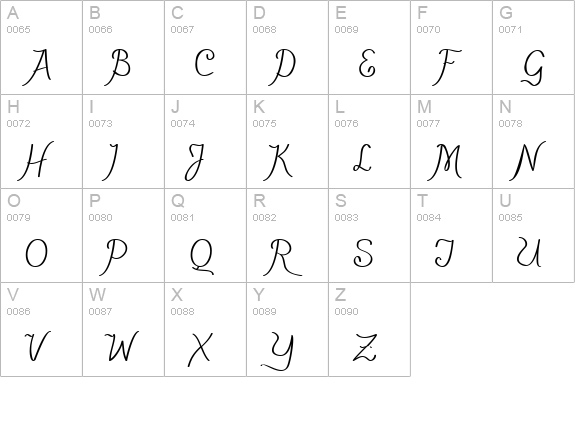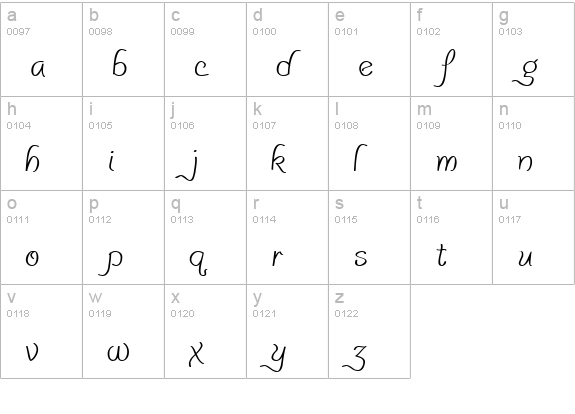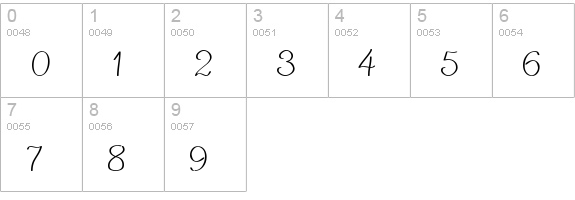
PensleCaligraf Plain Font Details
Introducing PensleCaligraf Plain, a meticulously crafted font that effortlessly combines elegance, sophistication, and a touch of artistic flair. This font is a testament to the beauty and precision of calligraphy, with each stroke carefully created to evoke a sense of grace and refinement. PensleCaligraf Plain is perfect for those seeking a font that exudes timeless charm and professionalism. Its clean lines and balanced proportions make it exceptionally versatile, suitable for a wide range of design projects. Whether used for invitations, branding materials, or even personal projects, this font will elevate any composition to new heights of visual appeal. One of the most remarkable aspects of PensleCaligraf Plain is that it is free to download, making it accessible to everyone. At FontsMarket.com, you can easily find and download this remarkable font without any cost. This generous offering allows designers and enthusiasts alike to explore the possibilities of PensleCaligraf Plain without any barriers. With PensleCaligraf Plain, your designs will effortlessly capture attention and leave a lasting impression. Its refined letterforms and impeccable spacing ensure legibility, while its elegant curves and subtle embellishments add a touch of sophistication. This font truly embodies the art of calligraphy, bringing a sense of timeless beauty to any project. Download PensleCaligraf Plain today from FontsMarket.com and experience the freedom of expression that this font offers. Let your creativity flourish as you explore the endless possibilities of this remarkable typeface. Whether you're a professional designer or an aspiring artist, PensleCaligraf Plain will undoubtedly become an invaluable asset in your creative toolkit.